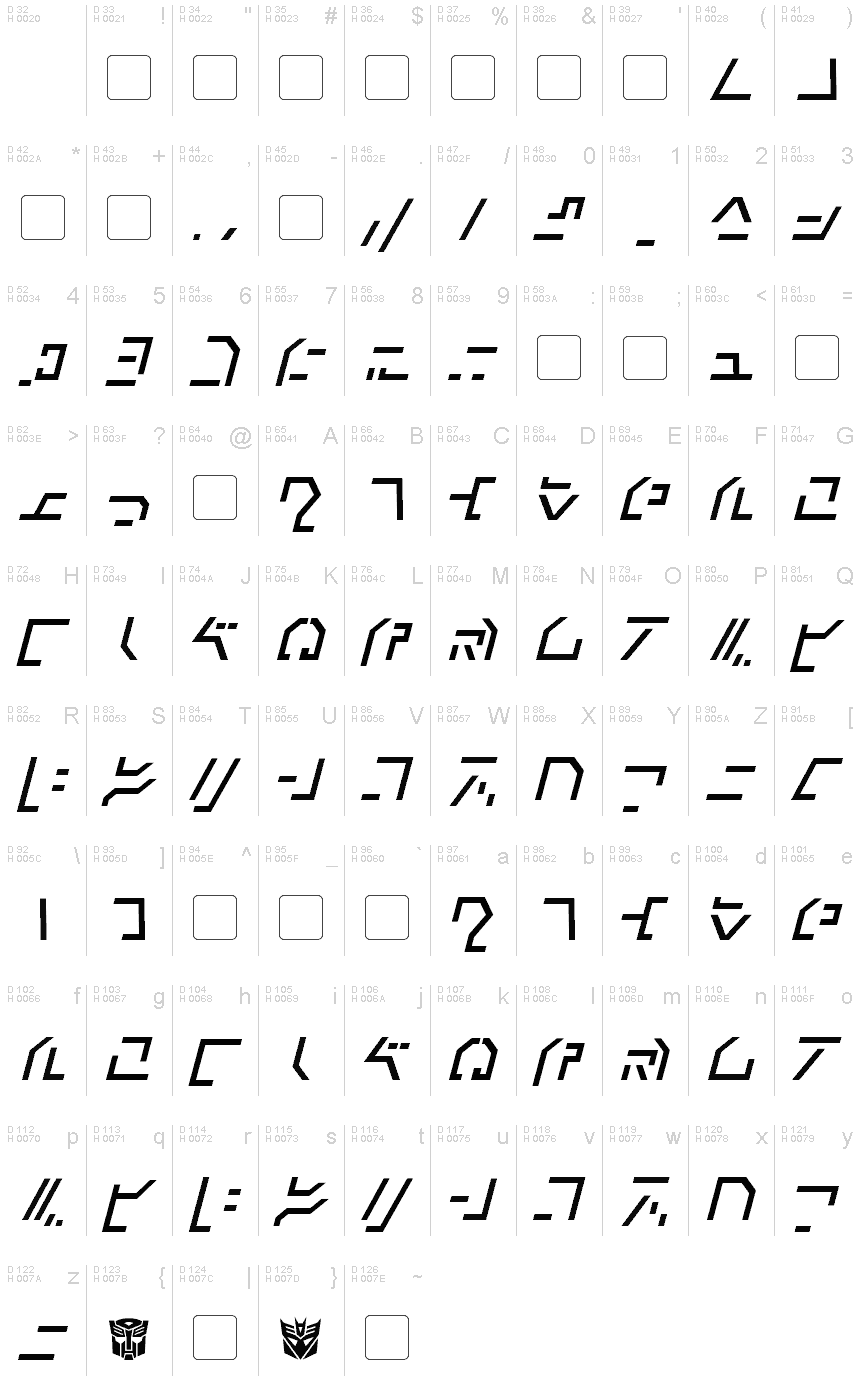
Modern Cybertronic Italic
Modern Cybertronic Italic is a captivating display font that pays homage to the iconic Transformers universe. Designed by Neale Davidson, this tech manual-inspired typeface evokes a sense of futuristic dynamism with its angular, machine-like forms. The italic weight adds a sleek and refined touch, making it an ideal choice for sci-fi-themed designs, user interfaces, and bold typographic treatments.
The font's dingbat characters further enhance its versatility, allowing designers to incorporate recognizable Transformers symbols and elements into their work. Modern Cybertronic Italic's distinctive aesthetic lends itself well to a range of applications, from movie posters and book covers to game interfaces and industrial branding. Its striking visual presence commands attention and successfully captures the essence of the beloved Transformers franchise.